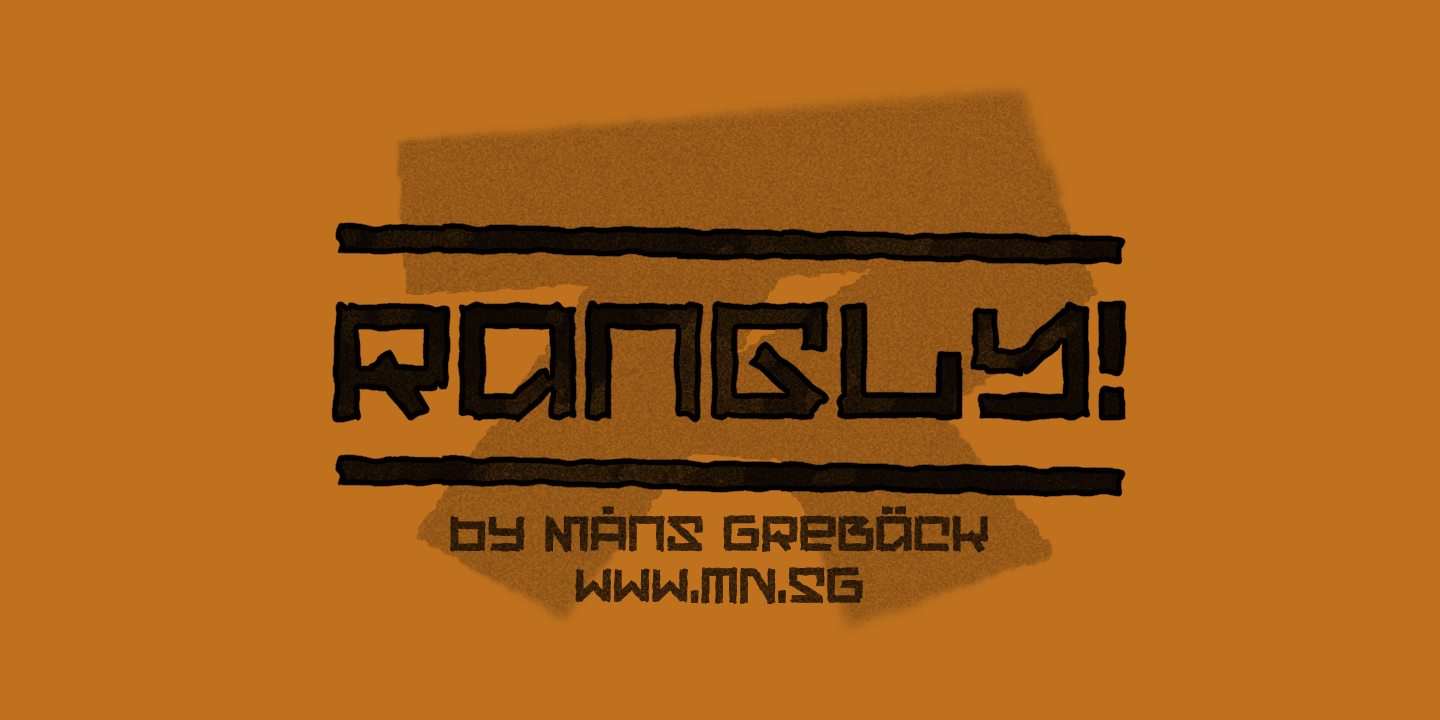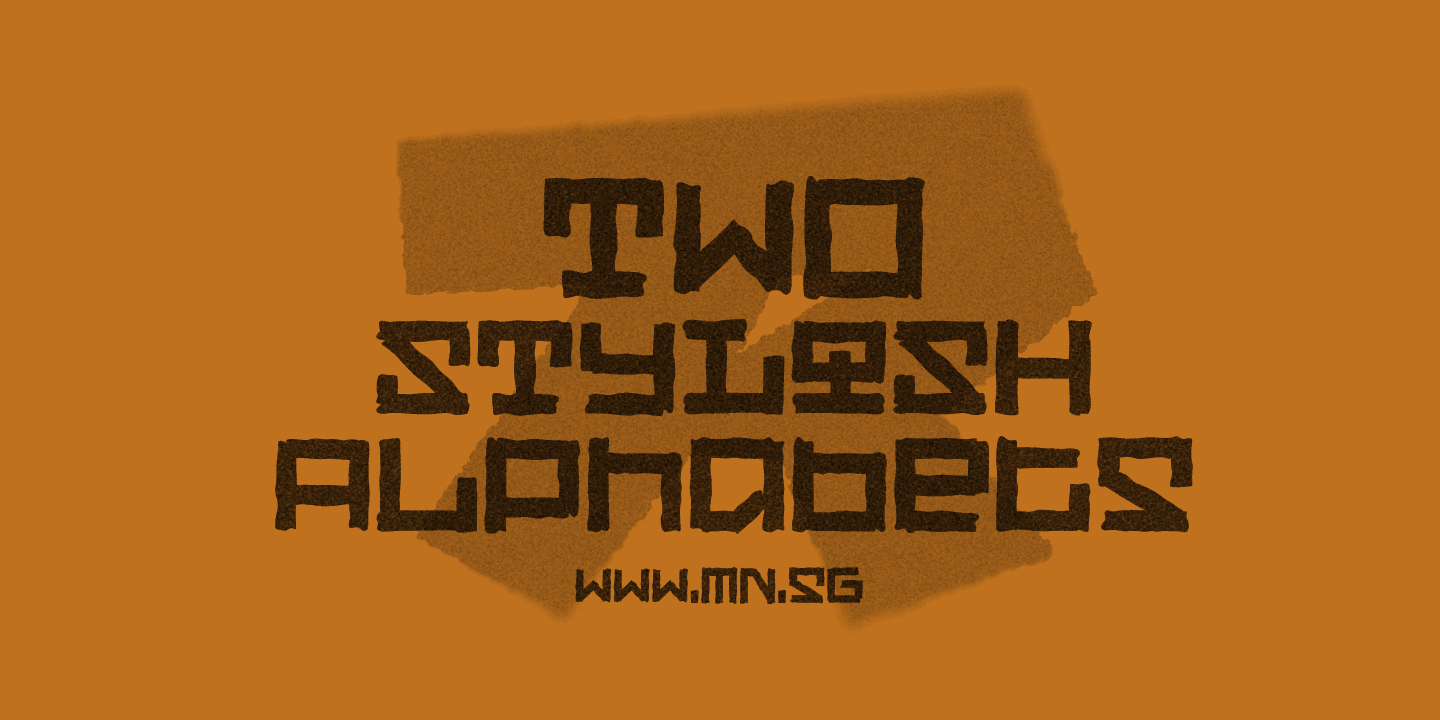
Rangly
Rangly is a square-based and rough typeface.
It has graffiti inspired shapes built with wide paint rolls.
The font is designed and created by Måns Grebäck in 2017, and has support for hundreds of languages.